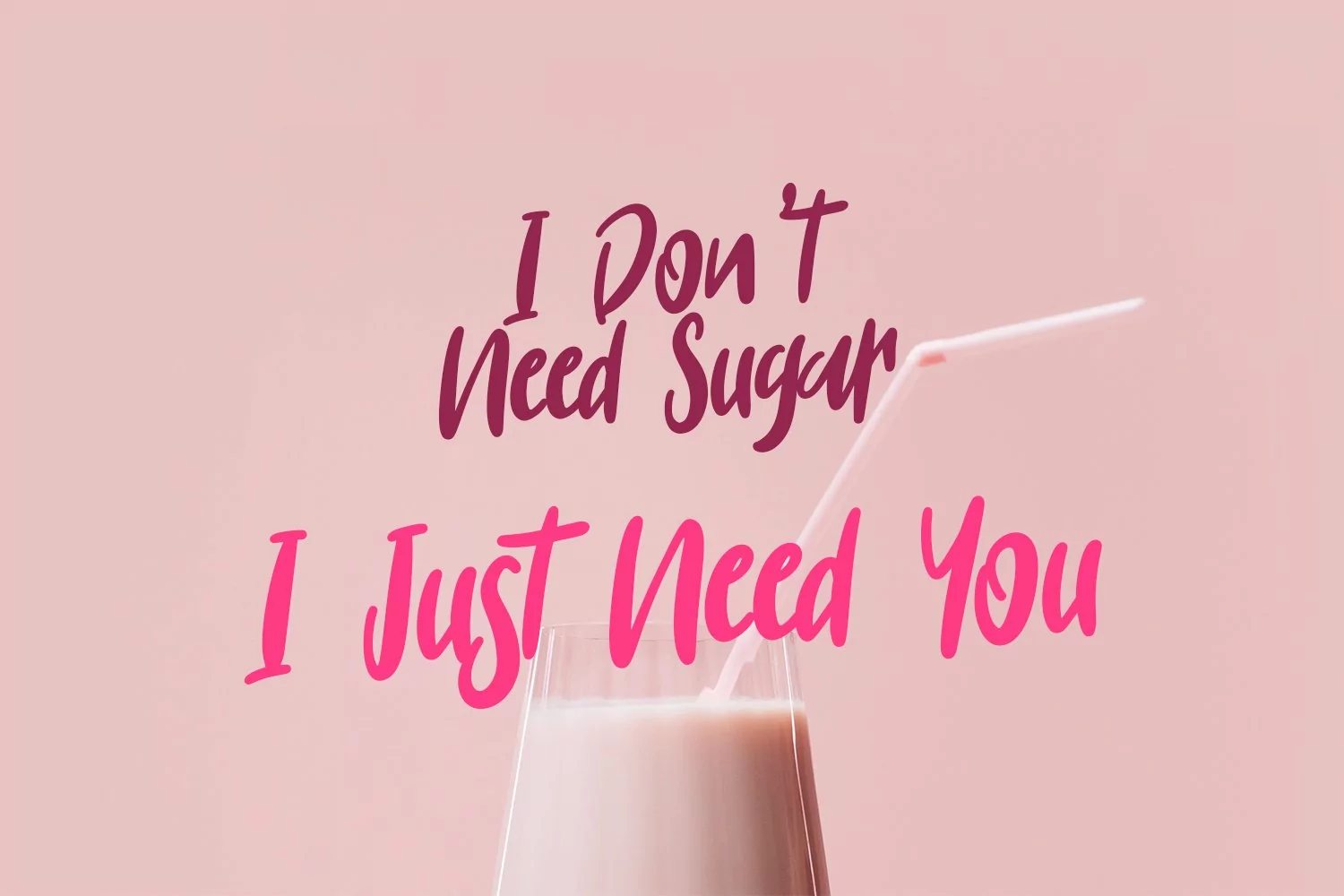
Jimmslofs is a casual script display font, with a clean bold stroke, slanted and fun character. It has Opentype features ligatures of character and alternate lowercase option, To give you an extra creative work. Jimmslofs font support multilingual more than 100+ language. This font is good for logo design, Social media, Movie Titles, Books Titles, a short text even a long text letter and good for your secondary text font with sans or serif. Make a stunning work with Jimmslofs font.